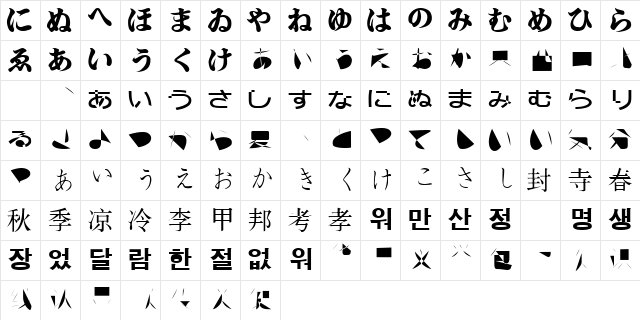
BMUGAsianFont Regular
Design Context for BMUGAsianFont Typeface
BMUGAsianFont offers clean, dependable letterforms without strong stylistic allegiance, making it a practical choice for designers who need flexibility.